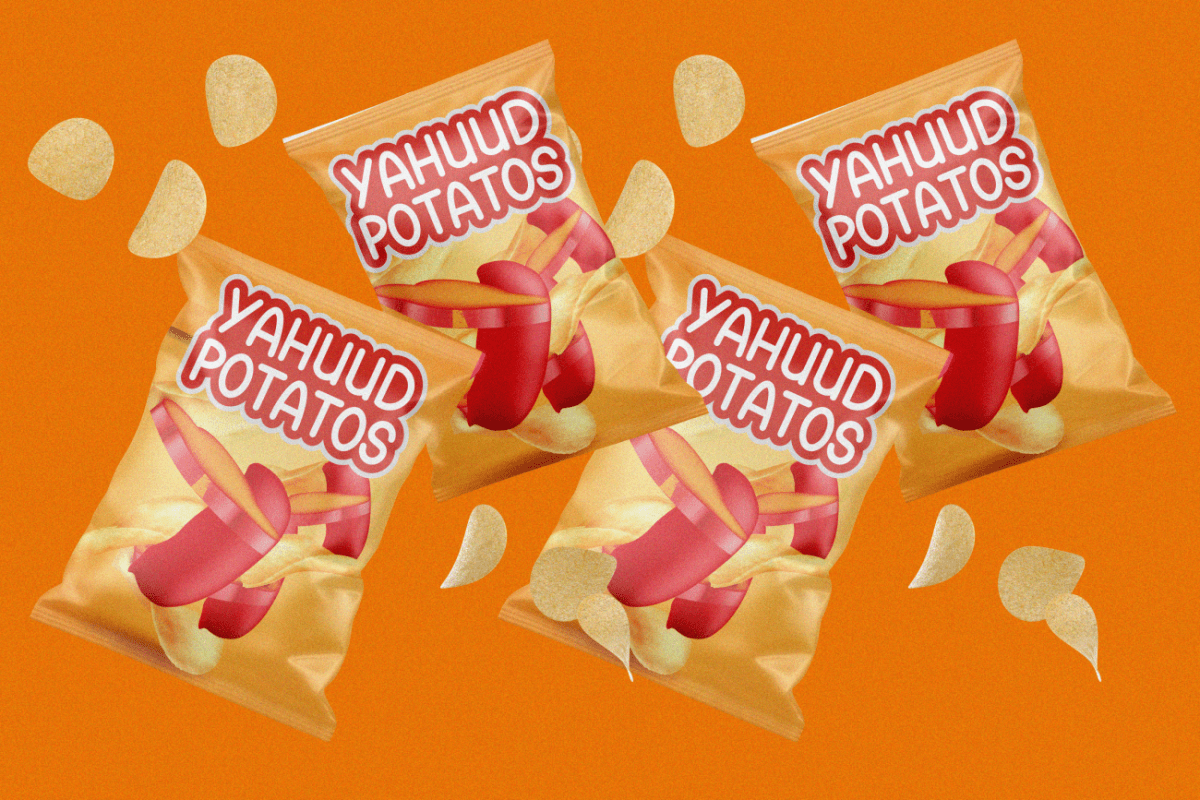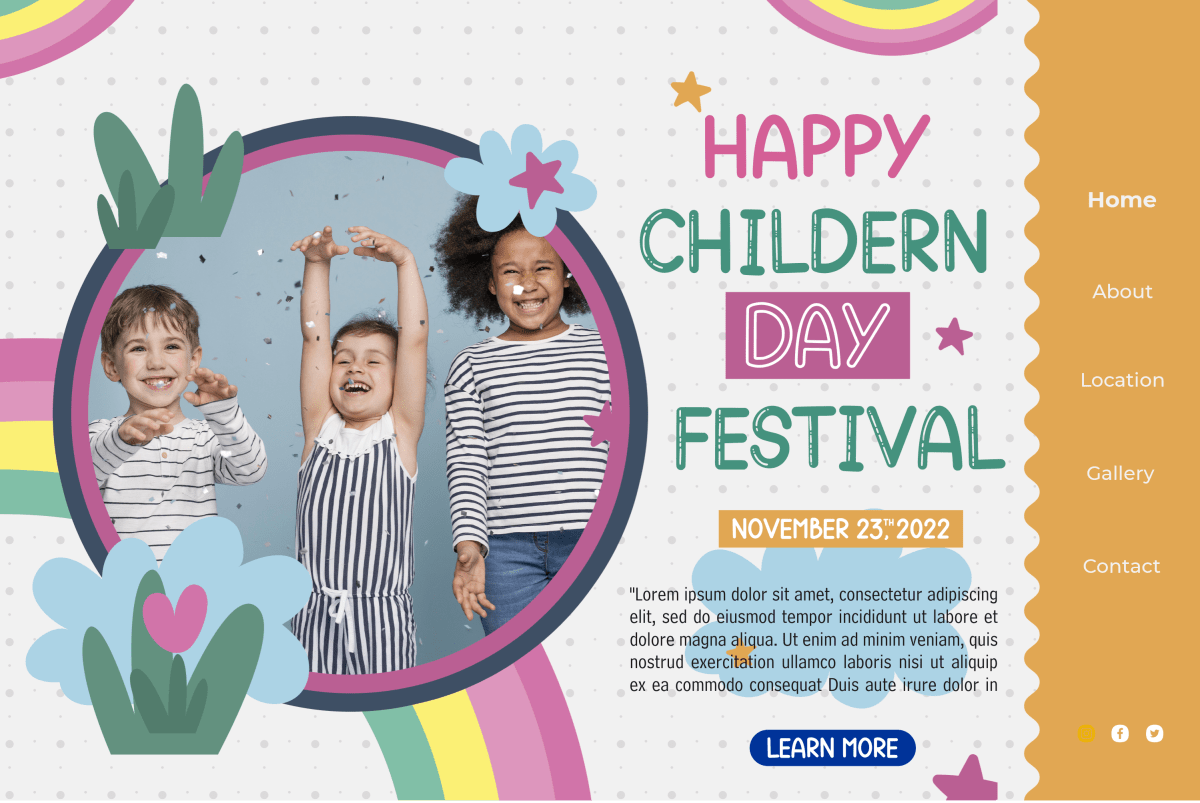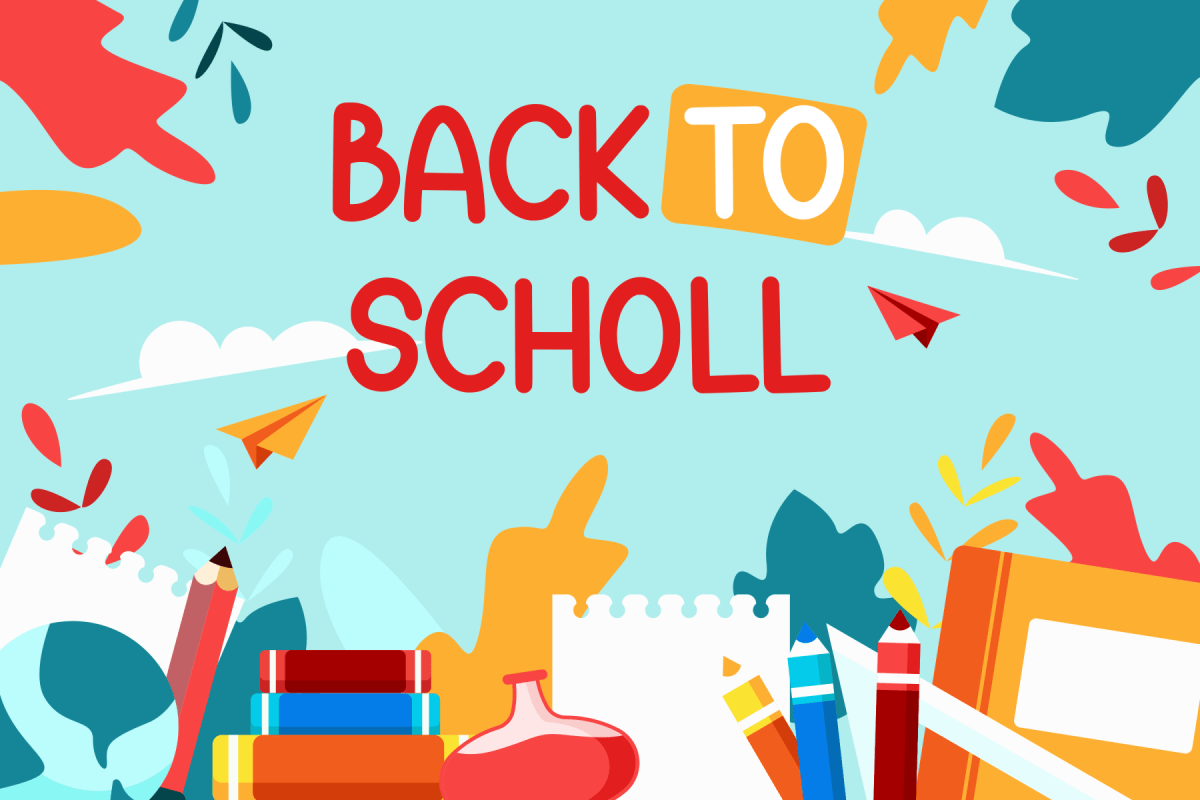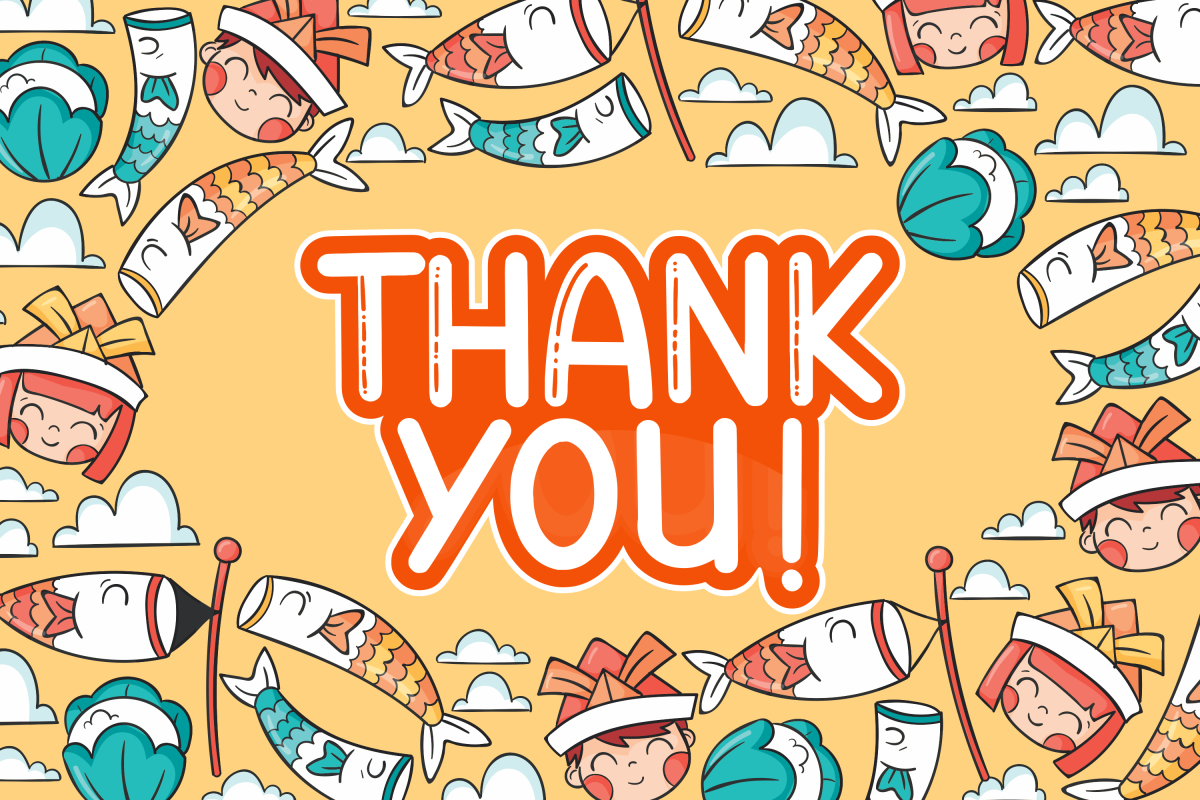
Gomuno Display Font
It’s a A Cute Handwritten Font With 3 Style Font. GOMUNO is perfect for product packaging, branding project, megazine, social media, wedding, or just used to express words above the background.